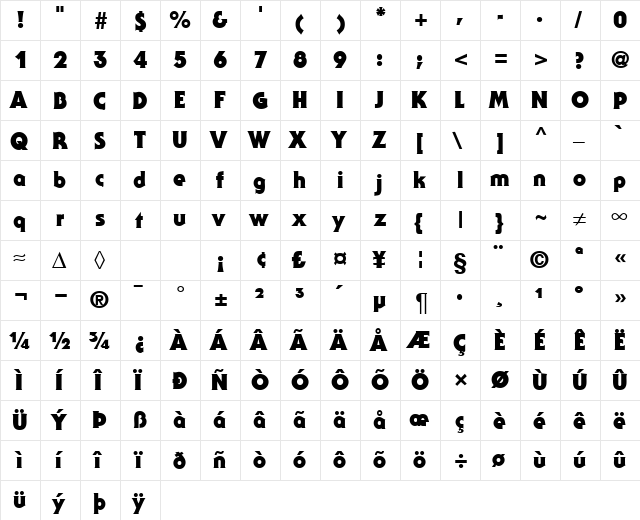
SerenadeTwoBlack Regular
Design Context for SerenadeTwoBlack Typeface
SerenadeTwoBlack offers clean, dependable letterforms without strong stylistic allegiance, making it a practical choice for designers who need flexibility.